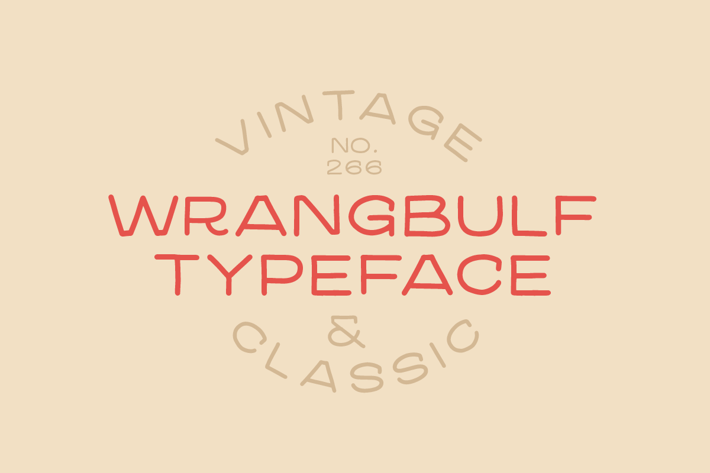
Wrangbulf typeface
MartypeCo
Wrangbulf is a vintage line typeface inspired by handmade lettering this, typeface is ready to use and suitable retro design like for Logotype, Label, Sign Painting, Badges, Poster and etc.
Wrangbulf Typeface
Wrangbulf Slanted